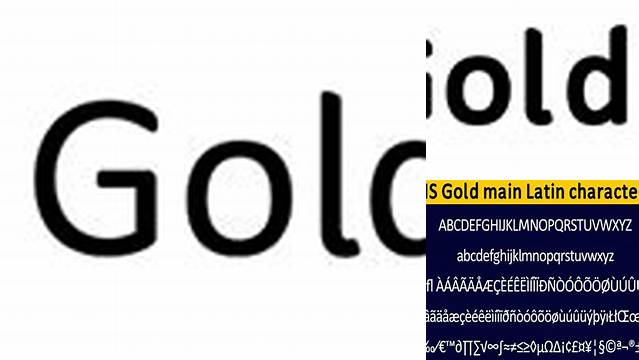
Are you looking to add a touch of elegance and sophistication to your designs? The HS Gold font might be exactly what you need. This font is renowned for its luxurious appearance, making it a popular choice for various creative projects, from branding to invitations. In this article, we’ll explore everything you need to know about HS Gold font, including where to find free downloads and how to best utilize it in your designs. Whether you're a seasoned designer or just starting, understanding the nuances of this font can significantly elevate your work. Let's dive into the details and uncover the potential of HS Gold font.
What is HS Gold Font?
HS Gold font is a stylish typeface characterized by its sleek lines and elegant curves. Its design often incorporates elements that evoke a sense of luxury and sophistication, making it suitable for projects that require a premium feel. The font is versatile and can be used in a variety of contexts, including logos, headings, and body text. It's particularly favored in the fashion, beauty, and hospitality industries, where visual appeal is paramount. When choosing a font, designers often look for something that not only looks good but also conveys the right message. HS Gold font excels in this regard, as its aesthetic naturally communicates elegance and quality. The attention to detail in its design makes it stand out, ensuring that it captures the viewer's attention and leaves a lasting impression. Whether you're working on a website, a print advertisement, or a social media campaign, HS Gold font can add a touch of class that sets your work apart.
Why Choose HS Gold Font?
Choosing the right font is crucial for making a strong visual impact, and HS Gold font offers several compelling reasons to be your go-to choice. First and foremost, its elegant design can instantly elevate the perceived value of your project. Imagine using it for a high-end product advertisement; the font itself communicates luxury and sophistication, aligning perfectly with the product’s image. Furthermore, HS Gold font is versatile. It works well in both headings and body text, providing flexibility in your design layout. This adaptability is a significant advantage, as it allows you to maintain a consistent visual theme throughout your project without needing to switch between multiple fonts. Another reason to choose HS Gold font is its readability. Despite its stylish appearance, the font remains clear and easy to read, ensuring that your message is effectively conveyed to your audience. In a world where first impressions matter, HS Gold font can help you make a memorable and positive one.
How to Use HS Gold Font in Your Designs
Once you've downloaded HS Gold font, the next step is to integrate it effectively into your designs. The key to using this font successfully lies in understanding its strengths and applying it in contexts where it can truly shine. Start by considering the overall tone and message of your project. HS Gold font is particularly well-suited for designs that aim to convey elegance, luxury, or sophistication. Think about using it for wedding invitations, high-end product packaging, or branding materials for a luxury spa. When incorporating the font, pay attention to the spacing and kerning. Adjusting these elements can significantly enhance readability and visual appeal. Also, consider the font size. HS Gold font often looks best when used in larger sizes for headings or titles, allowing its intricate details to be fully appreciated. Experiment with different color combinations to see what works best with the font’s aesthetic. Gold or metallic accents can complement the font's luxurious feel, while contrasting colors can make it stand out even more. Finally, remember to maintain consistency in your design. Using HS Gold font sparingly and strategically can create a more impactful and cohesive visual experience.
Tips and Tricks for Working with HS Gold Font
Working with HS Gold font can be a delightful experience if you know a few tricks to maximize its potential. First, always pair it with a complementary font for body text. HS Gold font is often best used for headings and titles due to its decorative nature. A simple, clean sans-serif font like Arial or Helvetica can provide a nice contrast and improve readability. Another useful tip is to experiment with different weights and styles of the font. Some variations of HS Gold font may include bold, italic, or light versions, each offering a slightly different look and feel. Using these variations strategically can add depth and visual interest to your designs. Additionally, consider using graphic design software like Adobe Photoshop or Illustrator to further customize the font. You can add shadows, gradients, or other effects to enhance its appearance. Remember to always preview your designs on different devices and screen sizes to ensure that the font looks good across all platforms. Finally, don't be afraid to break the rules and experiment with unconventional uses of HS Gold font. Sometimes, the most creative and impactful designs come from pushing the boundaries and trying new things.
HS Gold Font: Examples in Real-World Designs
To truly appreciate the versatility and impact of HS Gold font, let's explore some real-world examples where it has been used effectively. In the fashion industry, you might see it on the logos or branding materials of high-end clothing brands, conveying a sense of luxury and exclusivity. In the hospitality sector, HS Gold font could be used for the signage or menus of upscale restaurants or hotels, adding a touch of elegance and sophistication. Wedding invitations are another common application, where the font's graceful curves and luxurious feel perfectly complement the special occasion. Beyond these specific industries, HS Gold font can also be found in a variety of other design projects, such as book covers, posters, and websites. For instance, a historical fiction novel might use the font to evoke a sense of timelessness and grandeur, while a modern art gallery could use it to add a touch of sophistication to its promotional materials. By examining these examples, you can gain a better understanding of how to effectively incorporate HS Gold font into your own designs and create visually stunning and impactful results.
Common Mistakes to Avoid When Using HS Gold Font
Even with its inherent elegance, HS Gold font can be misused if you're not careful. One common mistake is overusing the font. Because of its decorative nature, using it excessively can make your design look cluttered and overwhelming. It's best to reserve HS Gold font for key elements like headings or logos, and use a simpler font for the body text. Another mistake is pairing it with fonts that are too similar in style. This can create a visual conflict and make your design look unbalanced. Instead, opt for fonts that provide a clear contrast, such as a clean sans-serif or a classic serif. Ignoring readability is another pitfall. While HS Gold font is generally legible, using it in very small sizes or with poor color contrast can make it difficult to read. Always ensure that your text is clear and easy to read, regardless of the font you're using. Finally, neglecting to check the licensing terms can lead to legal issues. Always make sure you have the appropriate license for the font, especially if you're using it for commercial purposes. By avoiding these common mistakes, you can ensure that HS Gold font enhances your designs rather than detracting from them.
Alternatives to HS Gold Font
If HS Gold font doesn't quite fit your design needs, there are several excellent alternatives that offer a similar aesthetic. **_One popular option is